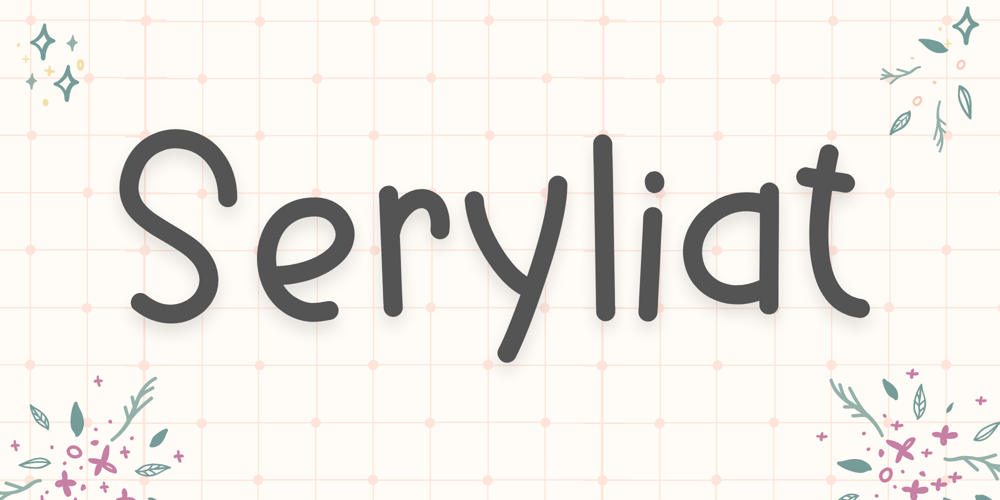
Seryliat
Seryliat font
Seryliat Font Family was designed by Nur Aiysah Amalia and published by Aisyah. Seryliat contains 1 styles and family package options. Seryliat is a simple and dainty handwritten font. Its natural and unique style makes it incredibly fitting to a large pool of designs. Use this font for your designs and explore its endless possibilities.